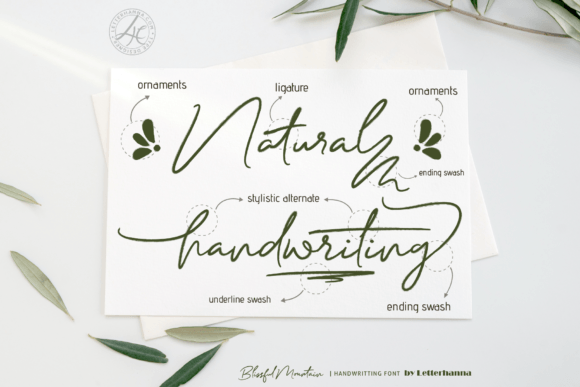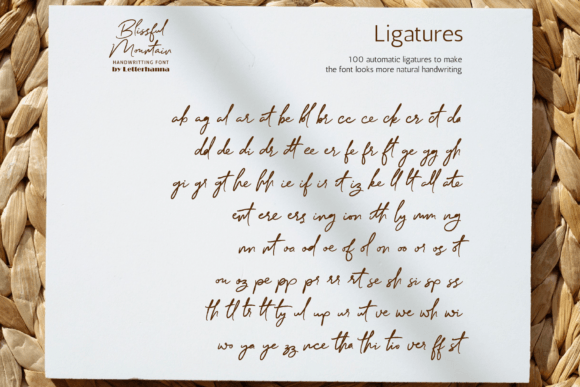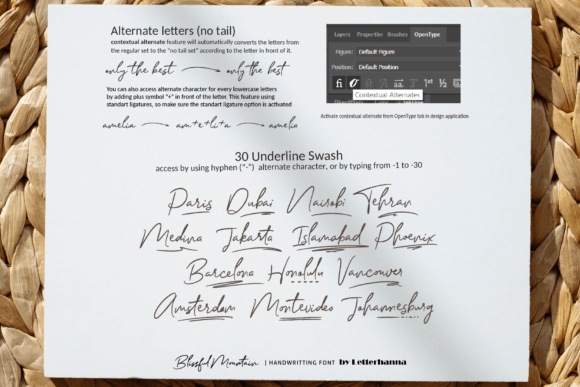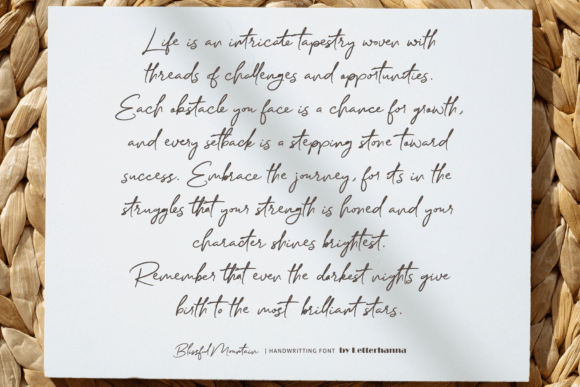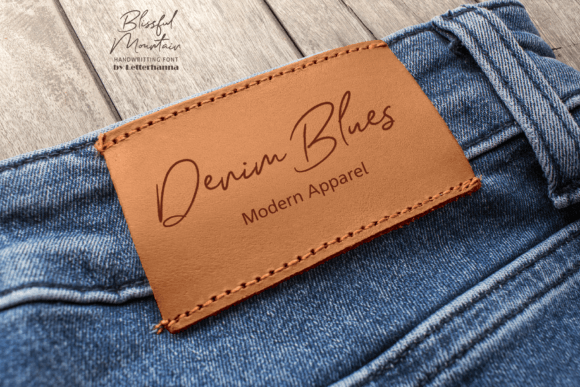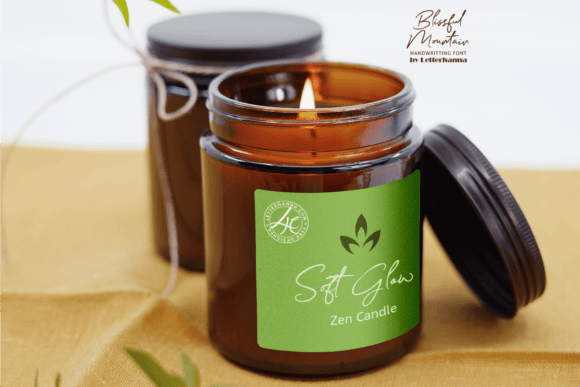
Discover the Serenity of Blissful Mountain Font
Imagine yourself standing at the foot of a majestic mountain, surrounded by nature’s grandeur and tranquility. The wind whispers through the trees, and the sound of a gentle stream creates a soothing melody. This serene atmosphere is now captured in a beautiful brush script font, aptly named “Blissful Mountain.” In this article, we’ll introduce you to this stunning font, exploring its features, and the inspiration behind its creation.
Introducing Blissful Mountain Font
Blissful Mountain is a captivating brush script font designed to transport you to a world of serenity and peace. With its graceful strokes and artistic flair, this font embodies the essence of tranquility found in the heart of majestic mountains. Each character is meticulously crafted to convey the peaceful and blissful aura of nature’s grandeur, making it perfect for designers and crafters seeking to add a touch of elegance to their projects.
The Inspiration Behind Blissful Mountain
The inspiration for Blissful Mountain Font comes from the majestic beauty of mountains and the sense of calm they evoke. The designers aimed to capture the essence of this natural wonder and translate it into a font that would bring serenity to any project. The result is a beautiful brush script font that exudes peace, tranquility, and a deep connection to nature.
Features of Blissful Mountain Font
Blissful Mountain Font boasts a range of features that make it an ideal choice for designers and crafters:
• Unique Brush Script Style: The font’s brush script style gives it a distinctive, hand-crafted feel that’s perfect for creating beautiful, eye-catching designs.
• Graceful Strokes: The font’s strokes are carefully designed to mimic the gentle curves of nature, adding a touch of elegance to any project.
• Artistic Flair: Blissful Mountain Font features an artistic flair that’s perfect for designers seeking to add a creative touch to their work.
• Peaceful and Blissful Aura: The font’s design captures the peaceful and blissful aura of nature’s grandeur, making it ideal for projects that require a sense of serenity.
Uses of Blissful Mountain Font
Blissful Mountain Font is a versatile font that can be used in a variety of projects, including:
• Branding and Logo Design: The font’s unique style and peaceful aura make it perfect for branding and logo design projects that require a touch of elegance.
• Stationery and Invitations: Blissful Mountain Font is ideal for creating beautiful stationery, invitations, and greeting cards that exude serenity and peace.
• Digital and Print Media: The font can be used in digital and print media, including magazines, brochures, and social media graphics.
• Crafting and DIY Projects: Blissful Mountain Font is perfect for crafters and DIY enthusiasts seeking to add a personal touch to their projects, such as handmade cards, scrapbooking, and journaling.
Tips for Using Blissful Mountain Font
To get the most out of Blissful Mountain Font, here are some tips to keep in mind:
• Pair with Neutral Colors: Pair the font with neutral colors like beige, white, or light gray to create a clean and elegant design.
• Experiment with Sizes: Experiment with different font sizes to create visual interest and add emphasis to your design.
• Add Natural Elements: Add natural elements like leaves, flowers, or mountains to your design to enhance the font’s peaceful aura.
Font Name Blissful Mountain Font
Blissful Mountain Font is a beautiful brush script font that captures the essence of serenity and peace found in majestic mountains. With its unique style, graceful strokes, and artistic flair, this font is perfect for designers and crafters seeking to add a touch of elegance to their projects. Whether you’re working on branding, stationery, or digital media, Blissful Mountain Font is sure to inspire and bring a sense of calm to your design.